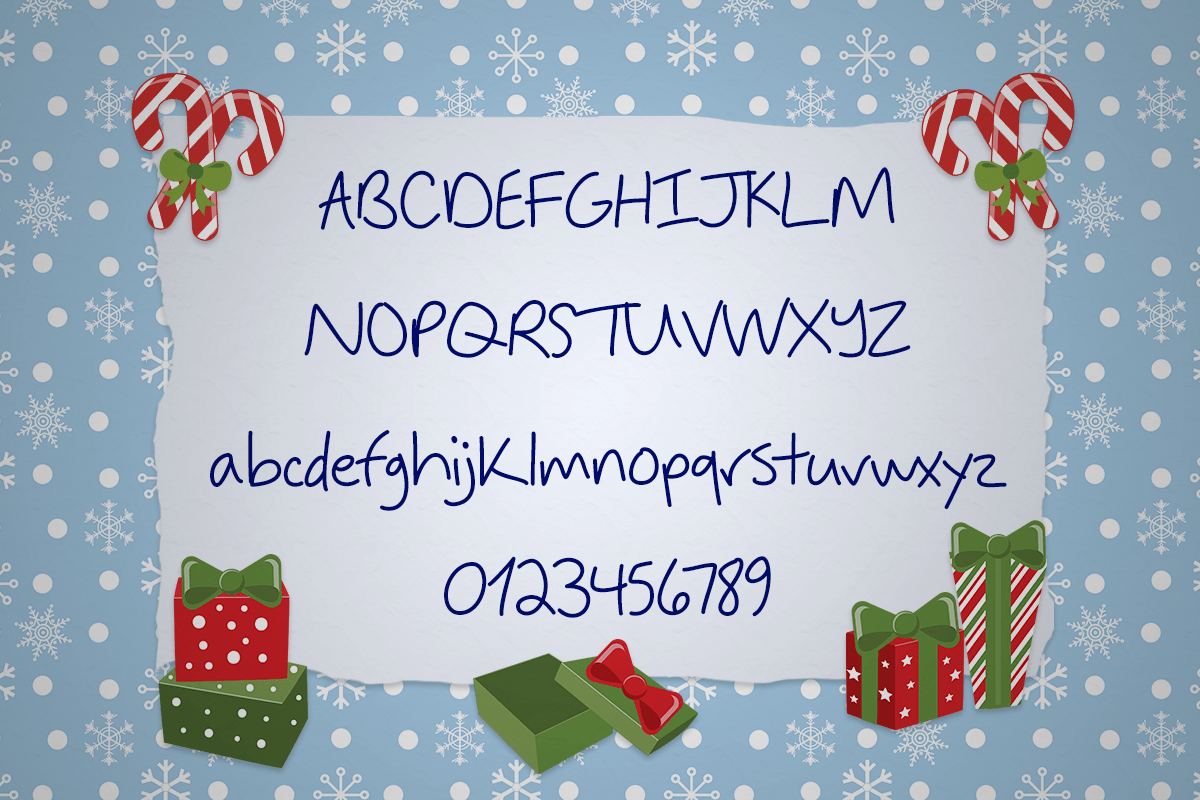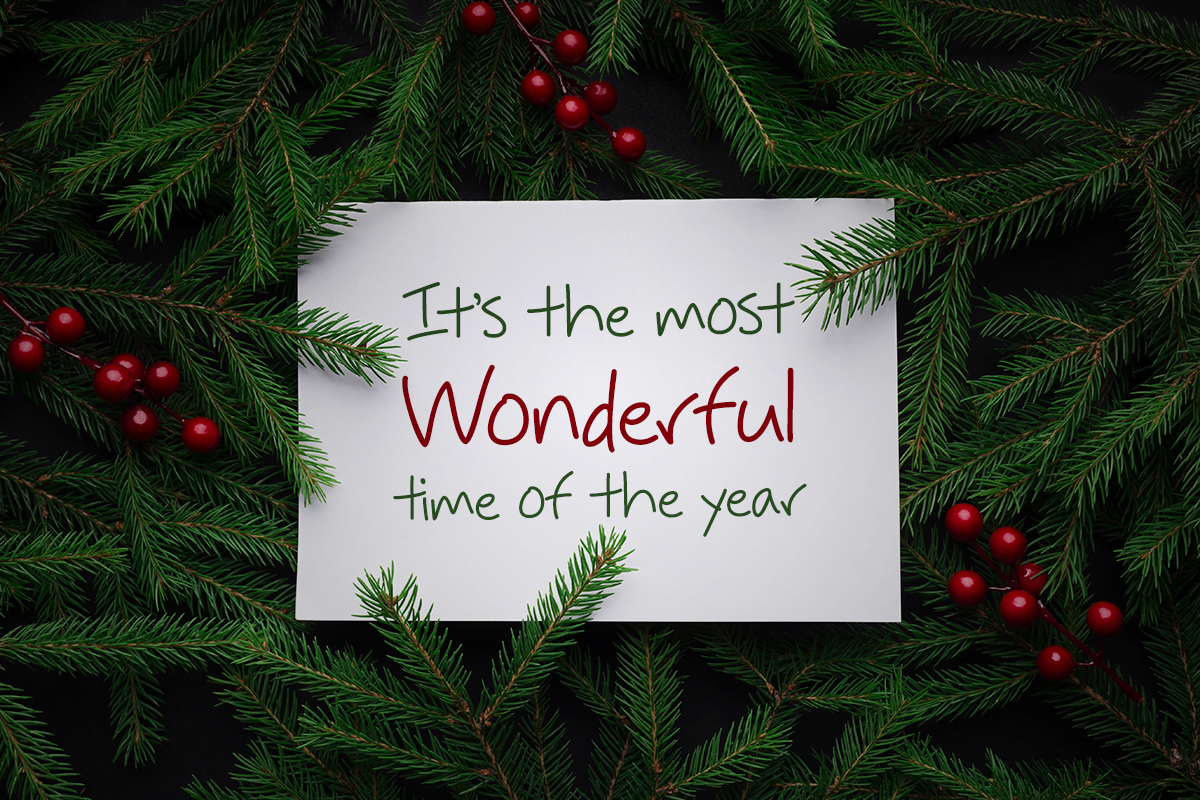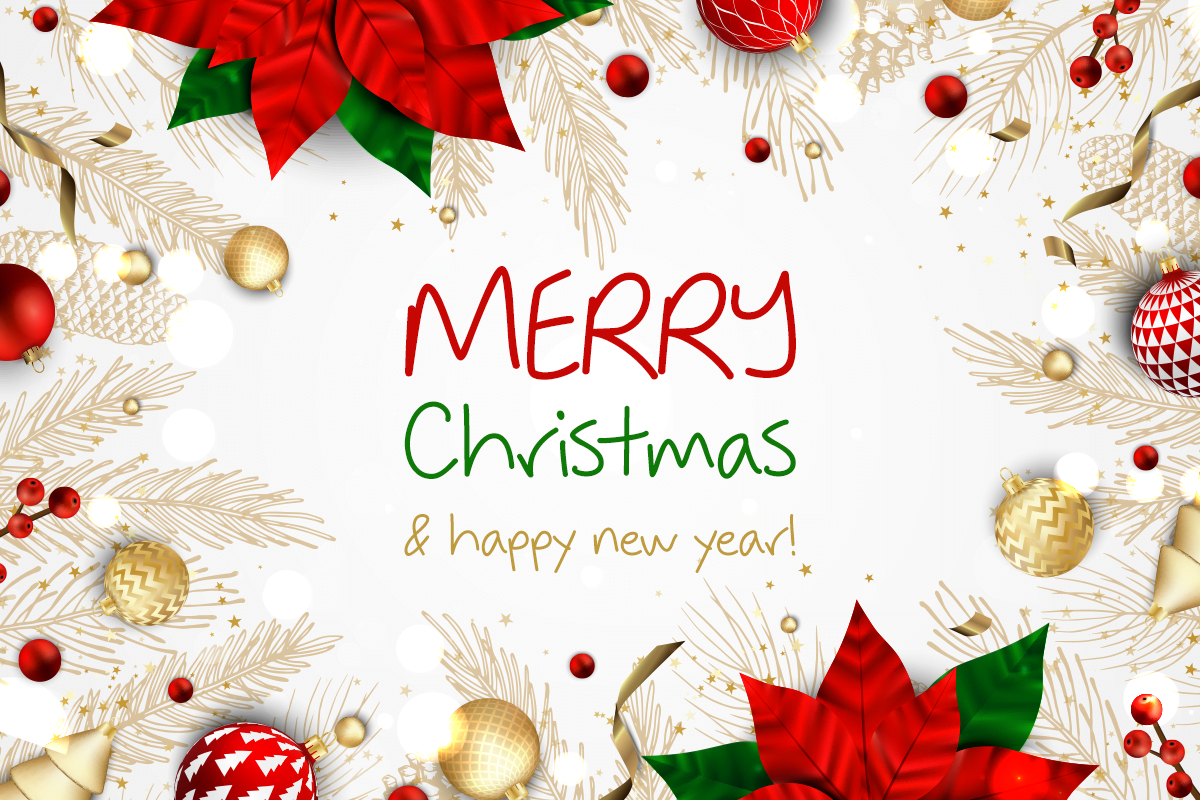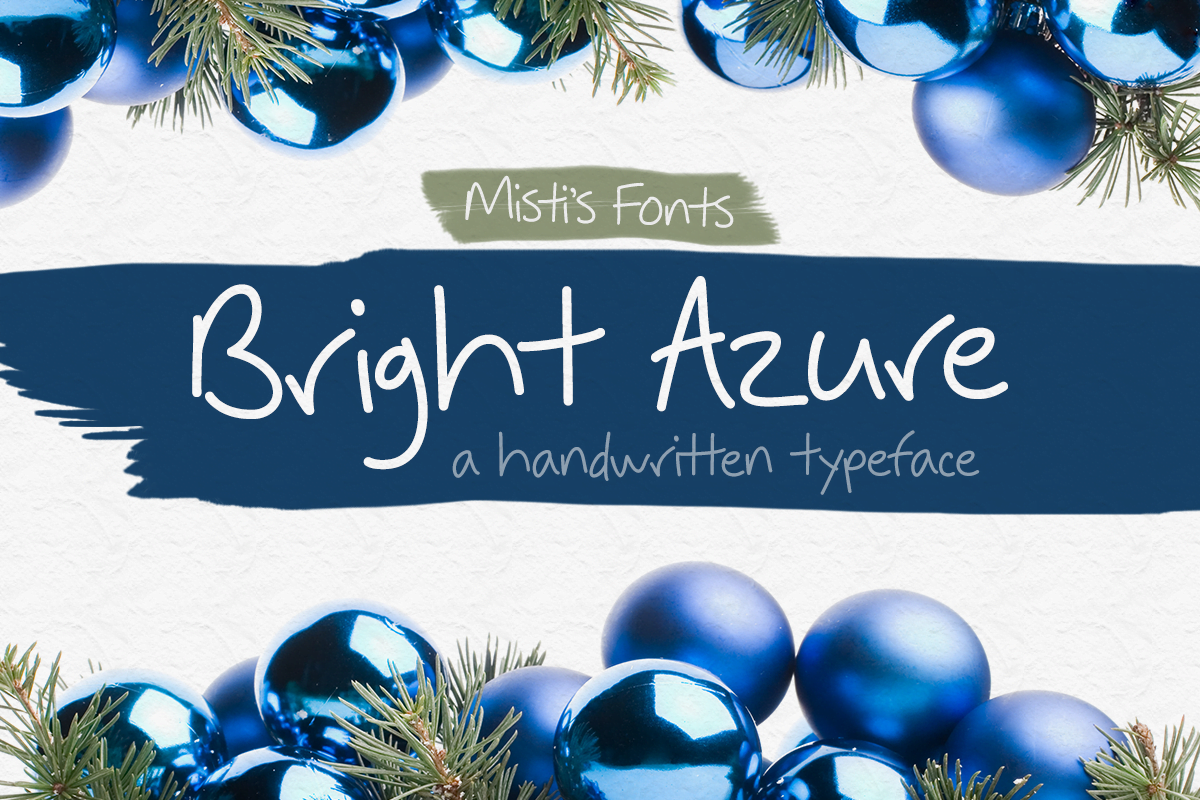
Bright Azure
Bright Azure is a whimsical typeface that will bring the look and feel of natural handwriting to your projects. Great for creating prints, website graphics, greeting cards and so much more! Let its cheerful simplicity inspire your own designs this Holiday season, as well as all year round!